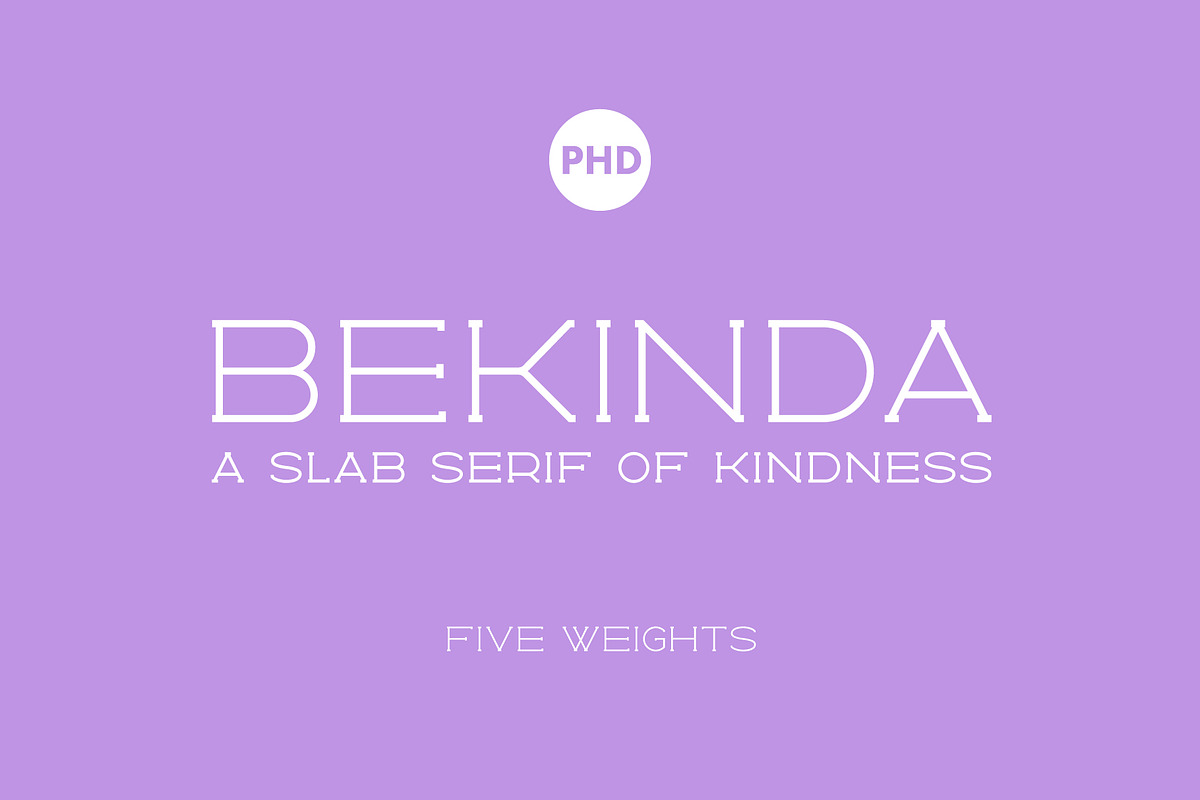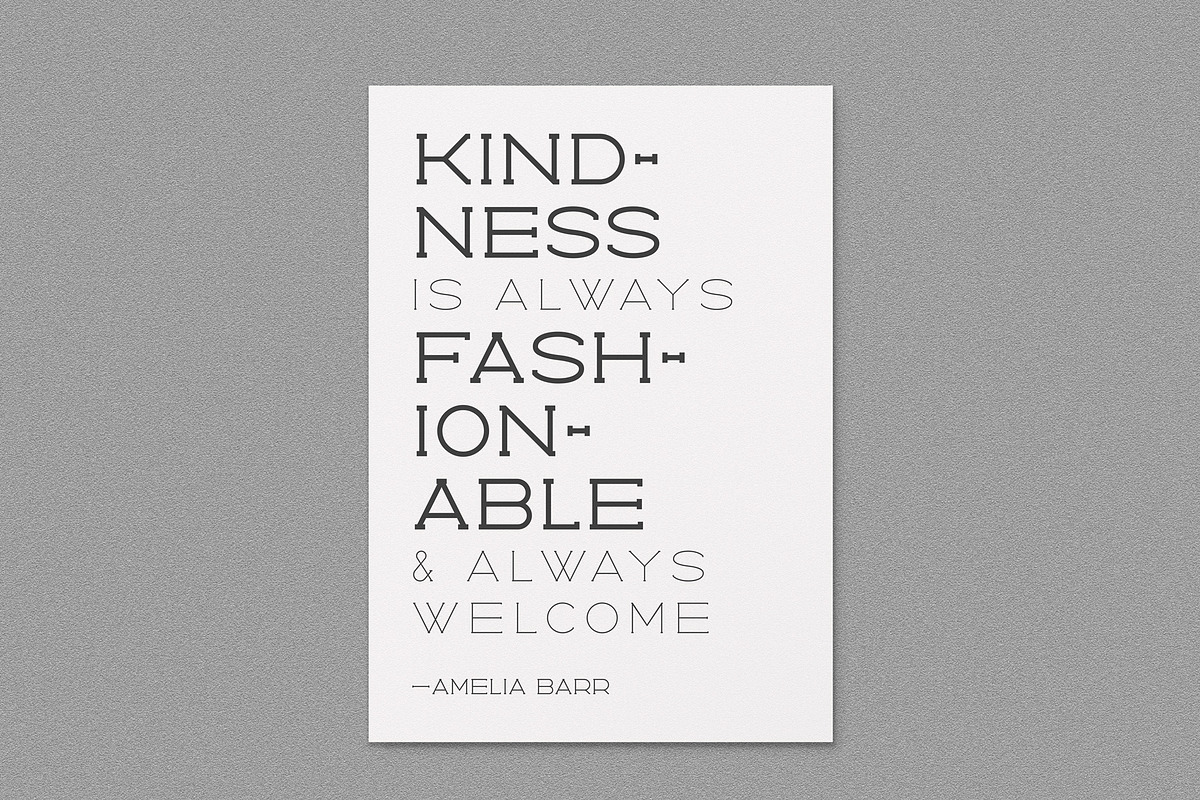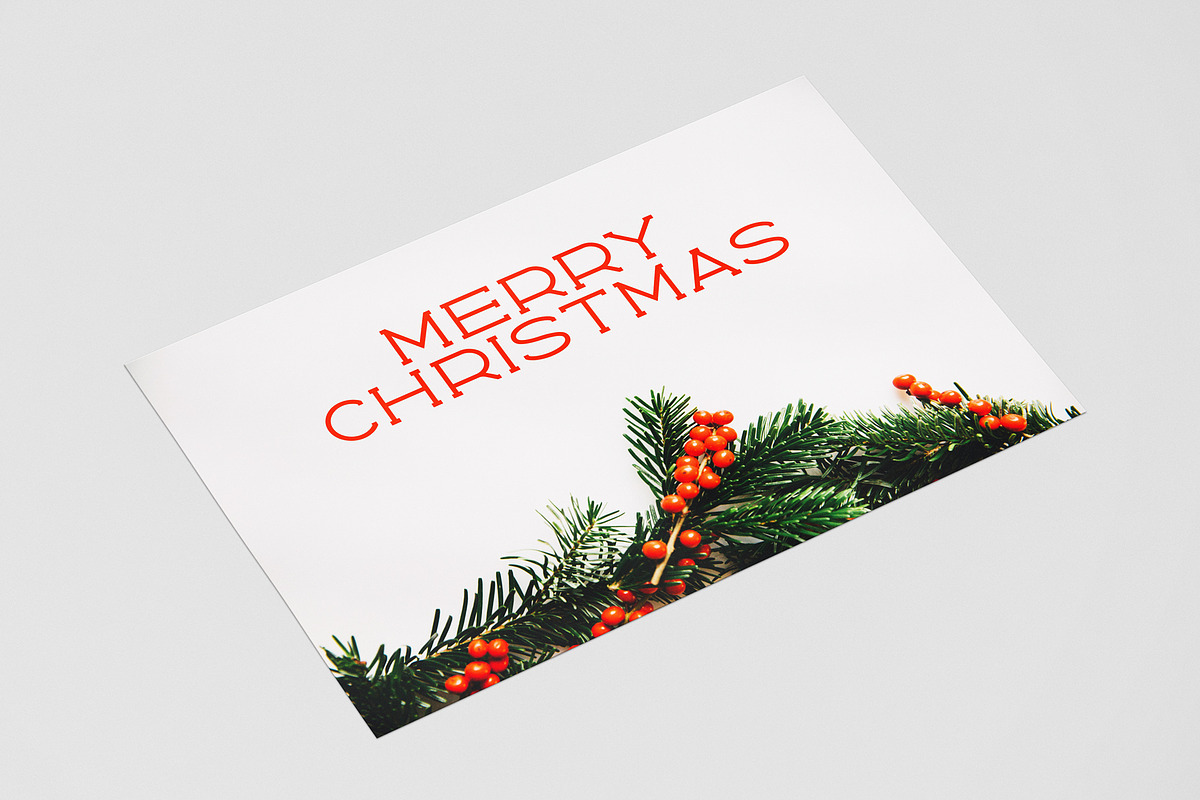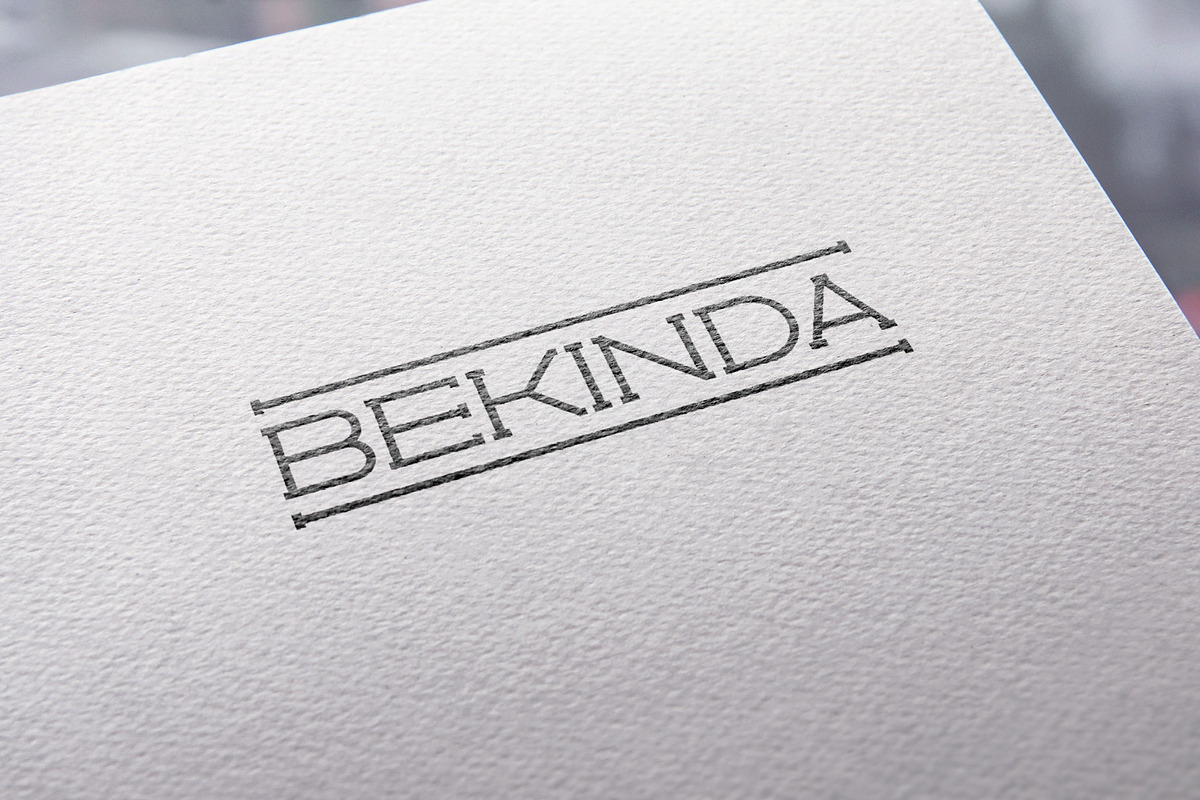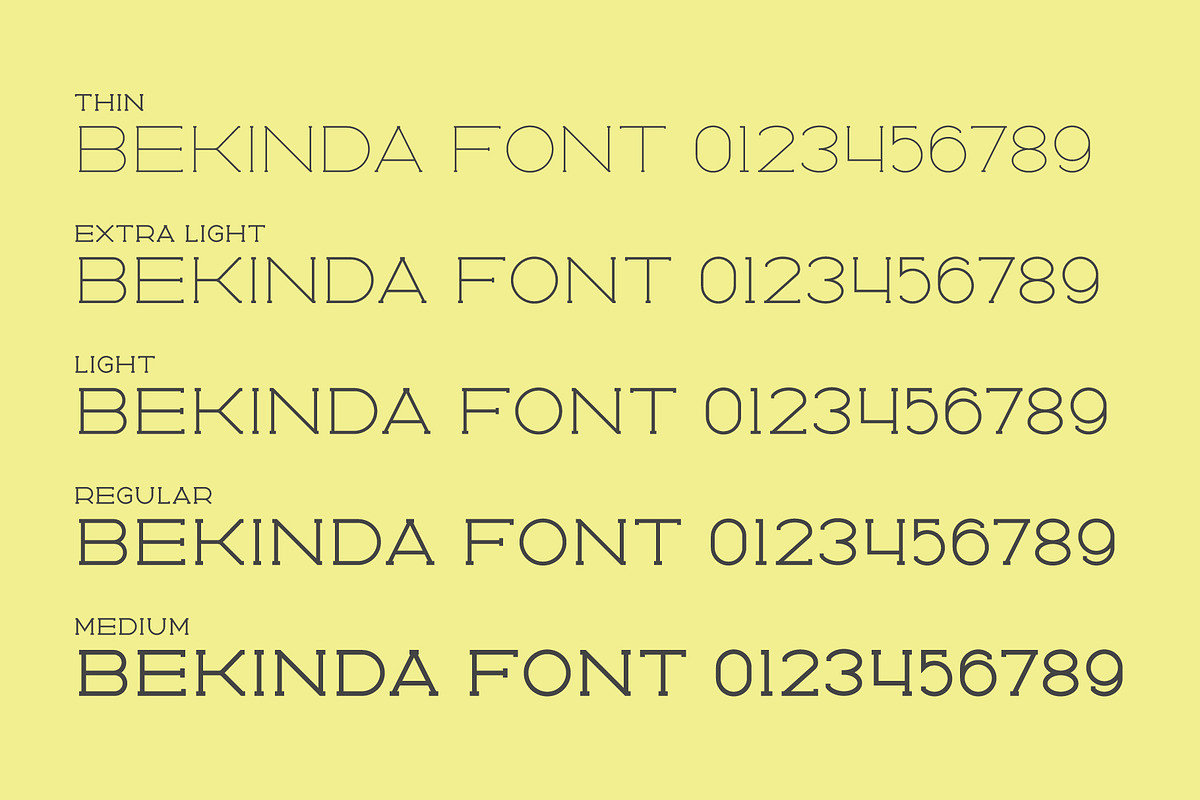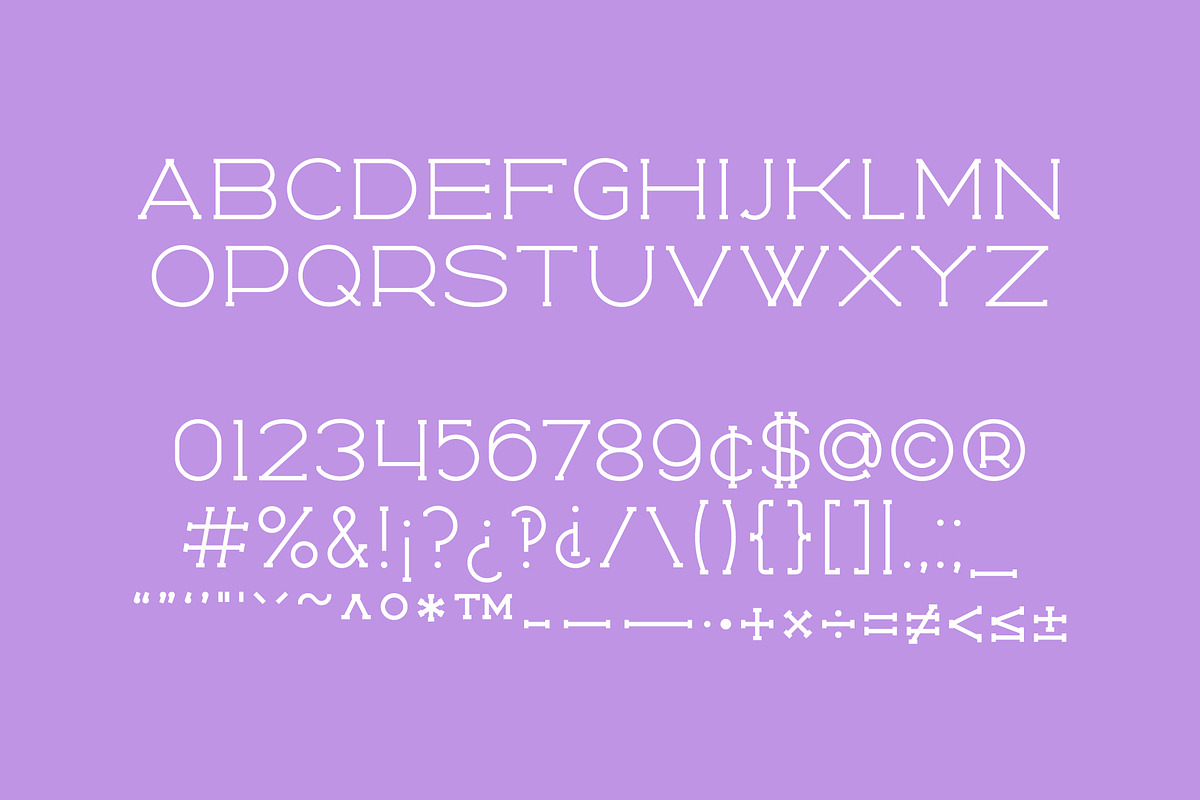
Bekinda
A slab serif of kindness.
Bekinda is a friendly slab serif font suited for Christmas postcards, event invites, or just to let someone know that you care.
Perfect for that kind, cheery look. Bekinda has subtle serifs that give it character without being overpowering or too in-your-face. It likes being used to inspire people, to promote hope, and to show kindness.